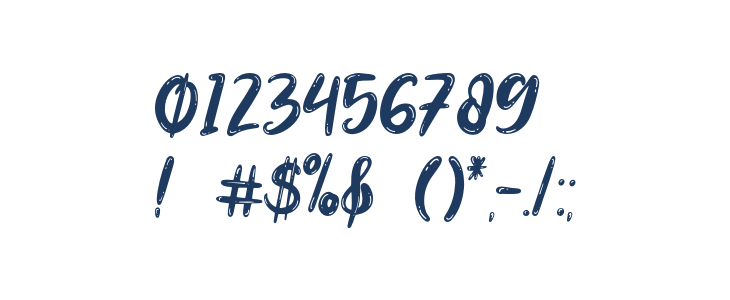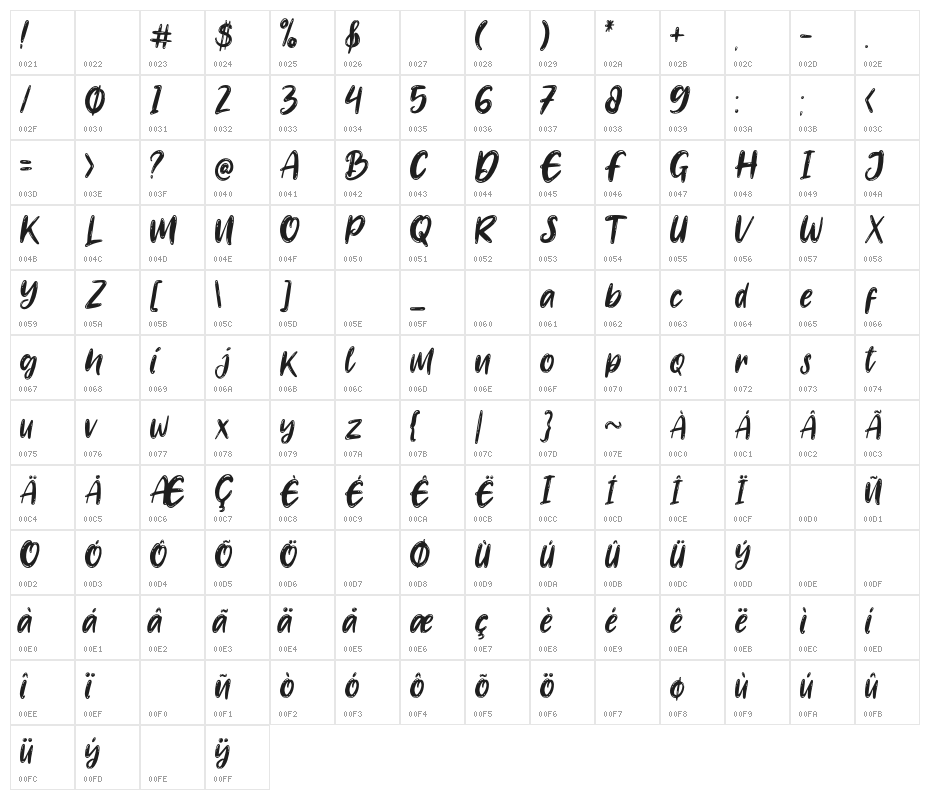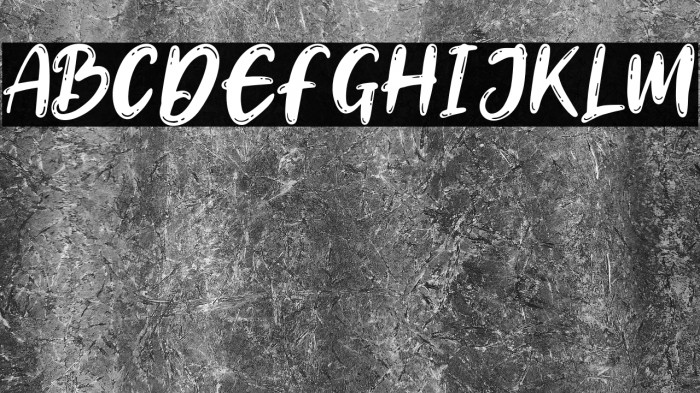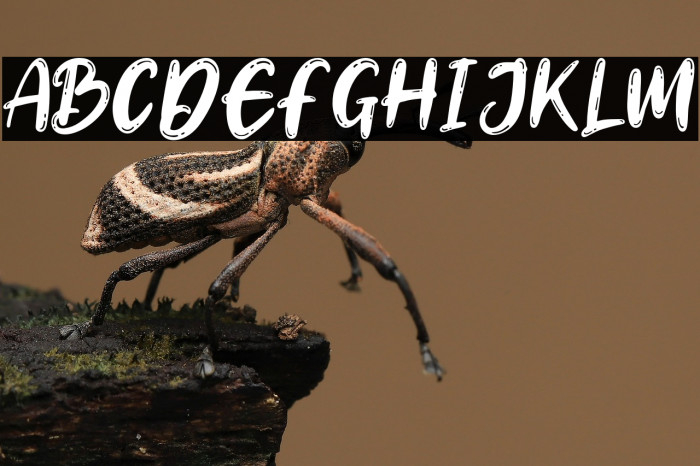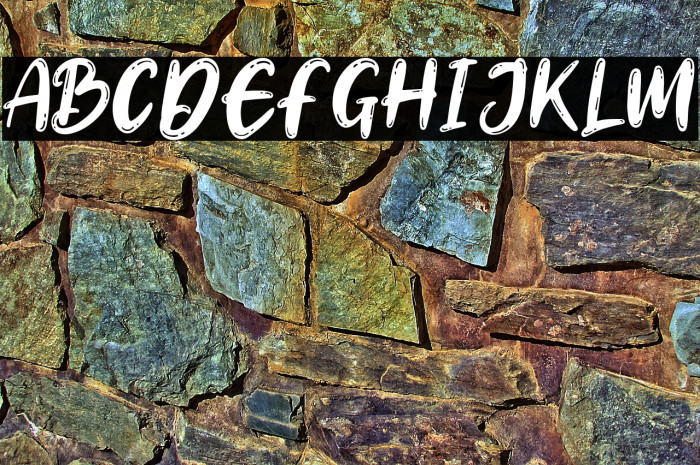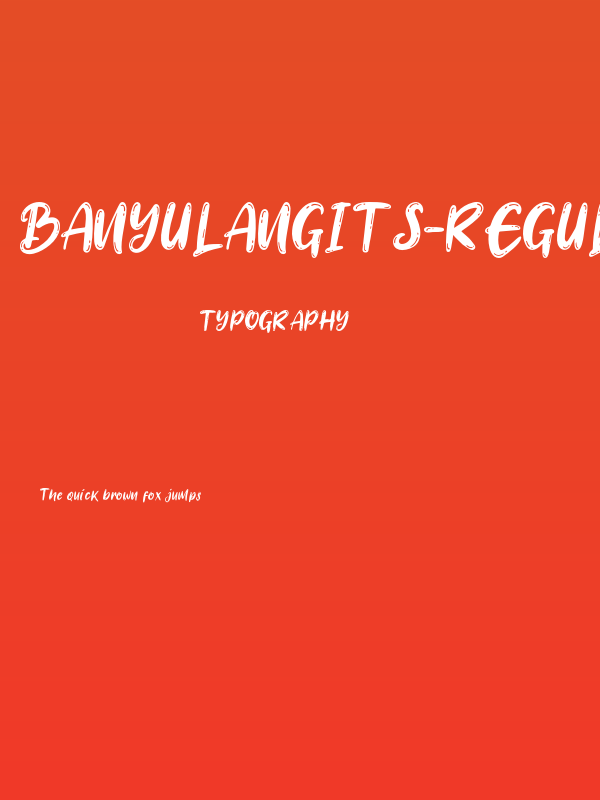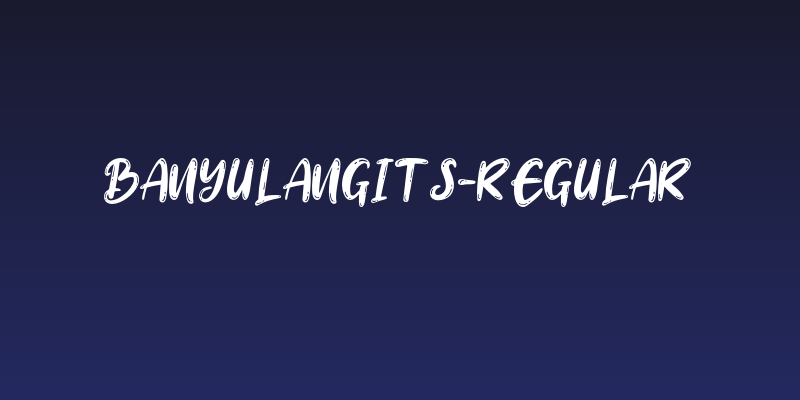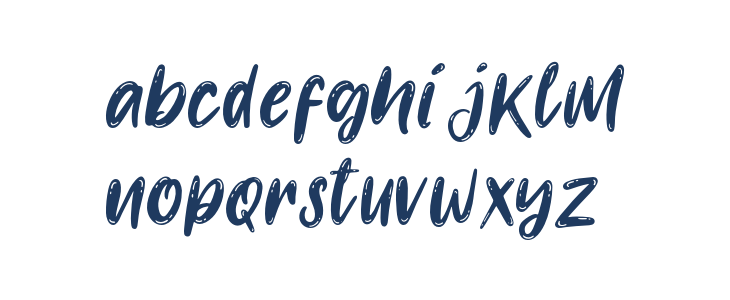
Banyulangits-Regular Font
Banyulangits-Regular Description
This font features a bold, expressive style with a handwritten appearance. The characters are crafted with a brush-like texture, giving them a dynamic and artistic flair. The strokes are thick and varied, with some letters having a slight slant, adding to the casual and informal feel. The uppercase and lowercase letters maintain a consistent style, while the numerals and special characters complement the overall design. This font's playful and energetic nature makes it suitable for creative projects.